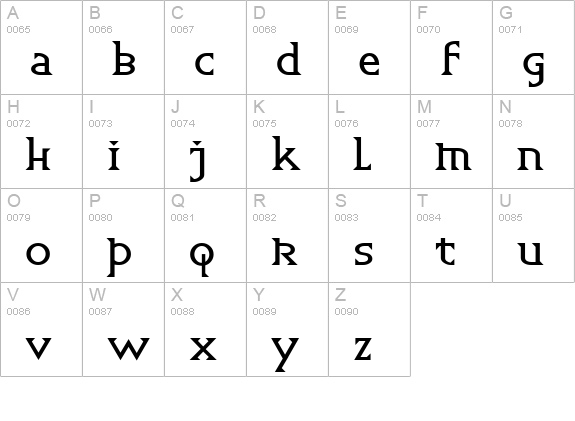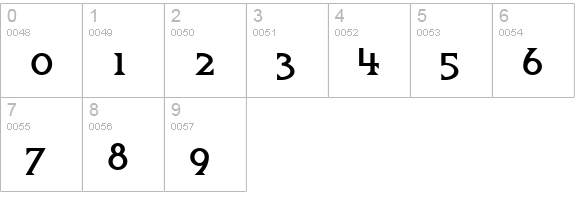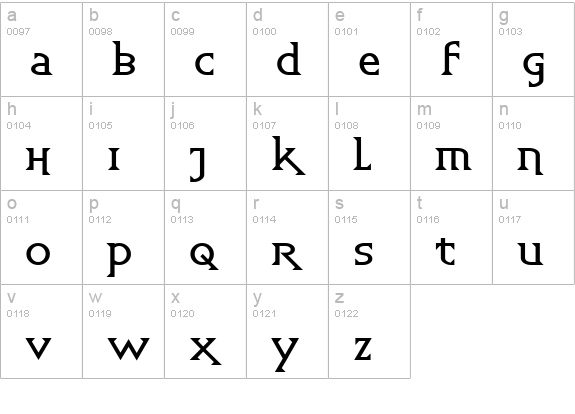
Upbeat Font Details
Introducing Upbeat font, a vibrant and energetic typeface that exudes positivity and charm. With its playful curves and modern aesthetic, Upbeat is perfect for adding a touch of fun to your designs. Whether you're working on a project that calls for a youthful and dynamic look or simply want to inject some joy into your creations, Upbeat is the ideal choice. What's more, Upbeat font is completely free to download at FontsMarket.com, making it accessible to everyone looking to bring a sense of excitement to their work. So why wait? Download Upbeat font today and let your creativity soar with this versatile and engaging typeface.